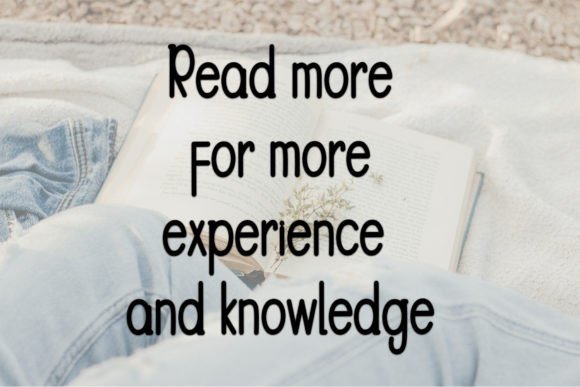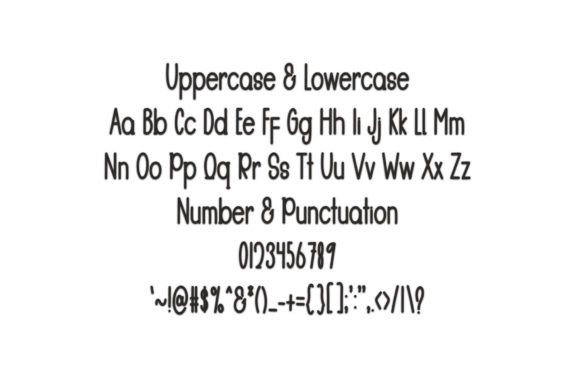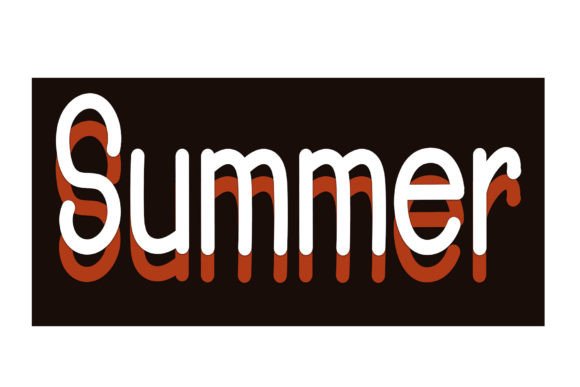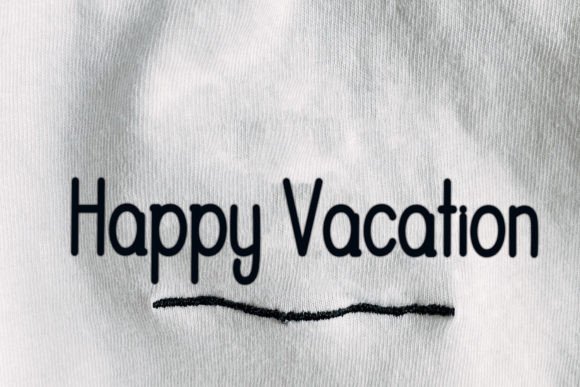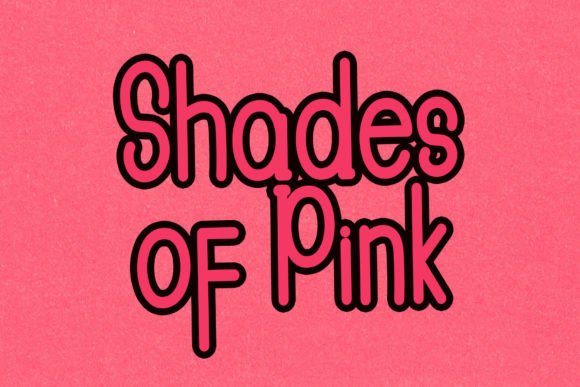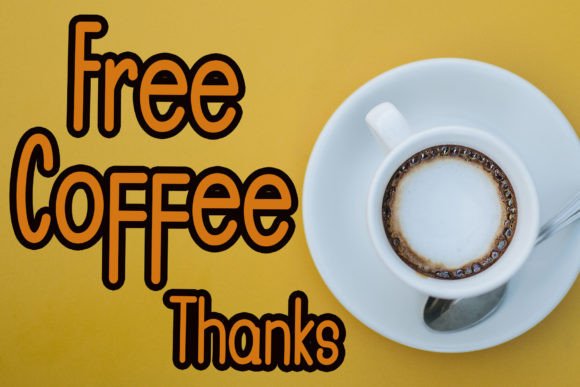
The Perfect Font to Bring Your Creative Dreams to Life
Have you ever been in the middle of a design project, staring at a blank screen, and suddenly, a spark of inspiration hits? You envision the perfect font, one that captures the essence of your vision and elevates your design to new heights. For many designers, this moment is a reminder that the right font can make all the difference.
Enter Dream Font, a beautiful display font that embodies elegance and sophistication. Designed to add a touch of class to any project, Dream Font is the perfect companion for designers looking to create something truly special. Its timeless style and distinct character make it an invaluable asset for any creative project.
Whether you’re a seasoned designer or just starting out, Dream Font is a valuable addition to your toolkit. Its versatility and beauty make it a go-to choice for designers looking to bring their creative dreams to life.
Dream Font Key Features
- Unique Characteristics: Dream Font features a distinctive, elegant design with intricate details and subtle nuances, making it perfect for high-end typography and branding.
Dream Font Review
Overall, I’d say the Dream Font is a visually appealing option for those looking to add a touch of elegance to their designs. ✨ The font’s rounded edges and subtle curves give it a friendly, approachable feel that works well in a variety of contexts.
Here are some of the things I think the Dream Font does well:
- ✨ Easy to read: The Dream Font is clear and legible, making it a great choice for body text or headings.
- ✨ Versatile: The font’s neutral style makes it suitable for a wide range of design projects, from blog posts to marketing materials.
- ✨ Unique: The Dream Font’s distinctive look sets it apart from more common fonts, adding a touch of personality to designs.
- ⚠️ Limited expressiveness: The Dream Font’s subtle design means it may not be the best choice for projects that require a lot of emphasis or dramatic flair.
- ⚠️ Not ideal for small text: The Dream Font’s rounded edges can make small text appear blurry or difficult to read.
Overall, I think the Dream Font is a solid choice for designers who want a clean, elegant look without a lot of fuss. While it may not be the best option for every project, it’s definitely worth considering for designs where a touch of sophistication is needed.
Dream Font is perfect for:
- Creating eye-catching headlines and titles
- Adding a unique touch to your brand’s visual identity
- Designing creative and engaging social media graphics
Experiment with different font sizes, colors, and styles to get the most out of Dream Font.
Alternatives to “Dream Font” for Designers
Great Vibes is a beautiful, elegant script font that is perfect for creating a sense of luxury and sophistication. It is ideal for use in branding, packaging, and advertising materials where a high-end feel is desired.
Compared to Dream Font, Great Vibes has a more refined and polished look, making it suitable for more formal applications. While Dream Font is a versatile font that works well in various contexts, Great Vibes is better suited for high-end and luxury branding.
Q: What is the recommended font size for Dream Font on different devices?
The recommended font size for Dream Font varies depending on the device and screen resolution. For optimal readability, we recommend the following font sizes: 14-16 pixels on desktop monitors, 12-14 pixels on laptops, and 10-12 pixels on mobile devices. However, these are general guidelines, and the optimal font size may vary depending on your specific design requirements and audience.